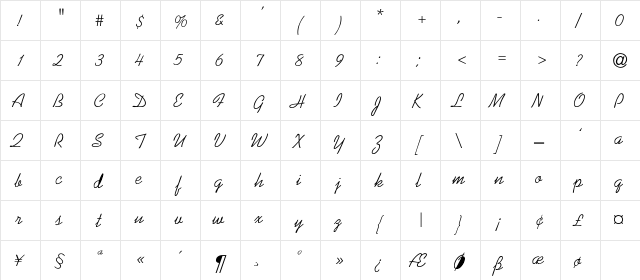
Kaufmann-Thin Regular Font Preview
Kaufmann-Thin Regular
Kaufmann-Thin Regular Font Details
Design Context for Kaufmann-Thin Typeface
Kaufmann-Thin takes a measured approach to typography — its balanced proportions and neutral character make it a reliable workhorse for both digital and print work. The delicate stroke weight brings airiness and refinement to layouts.